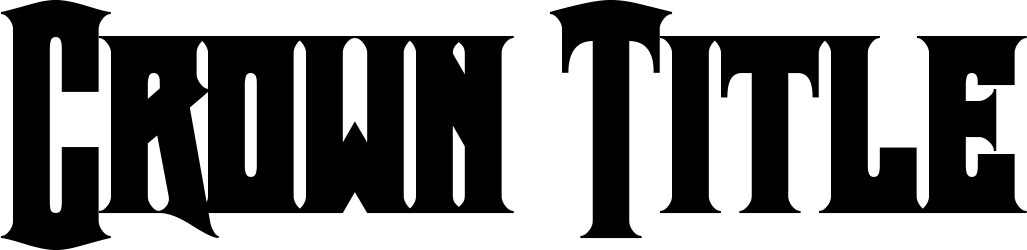
Crown Title Font
We have come together with the bold and classic atmosphere of the ancient gothic font to turn our writing dreams into an admirable reality through its nostalgic effects. Although lowercase letters, numbers, and punctuati…
We have come together with the bold and classic atmosphere of the ancient gothic font to turn our writing dreams into an admirable reality through its nostalgic effects.
Although lowercase letters, numbers, and punctuations are absent in this Crown Title font, rest assured that it can be effective in highlighting traditional movie posters, logos, book covers, headlines, and other displays through its sharp and angled edges.
Crown Title Font